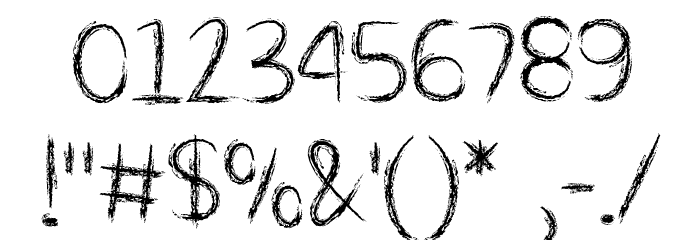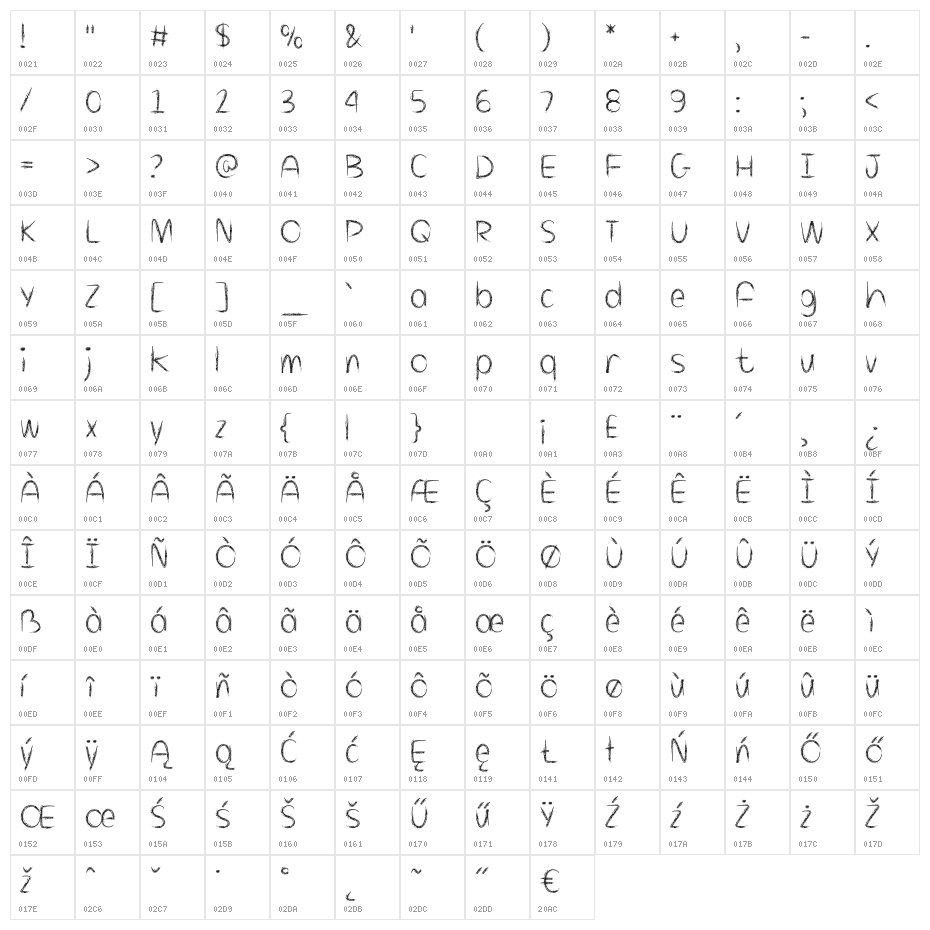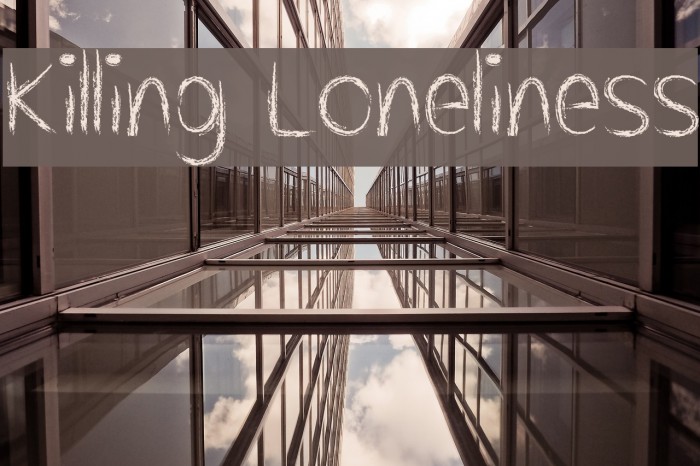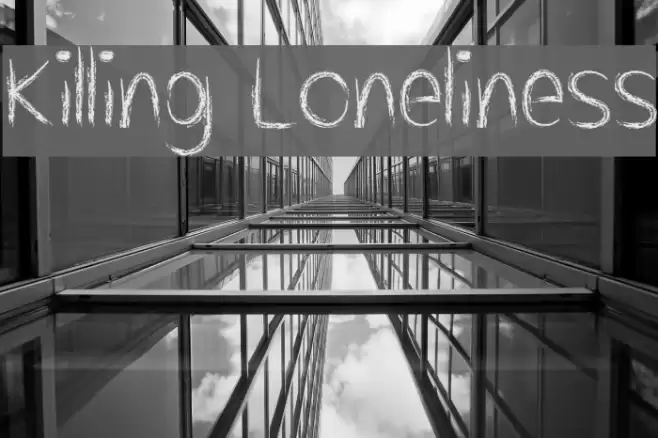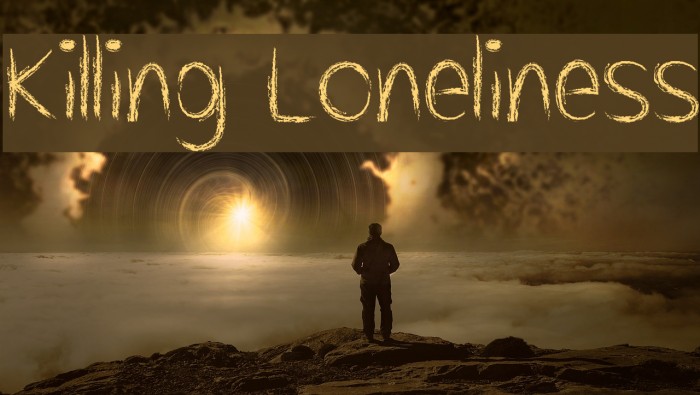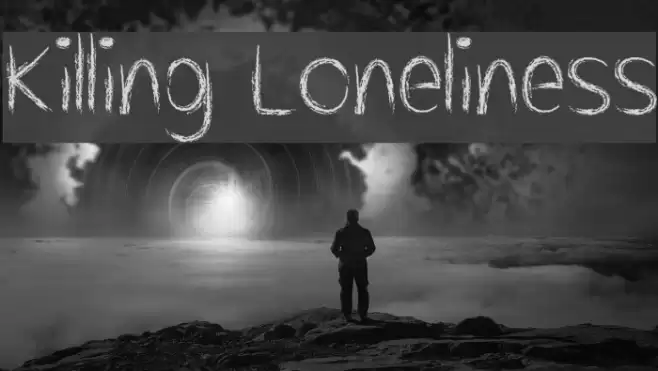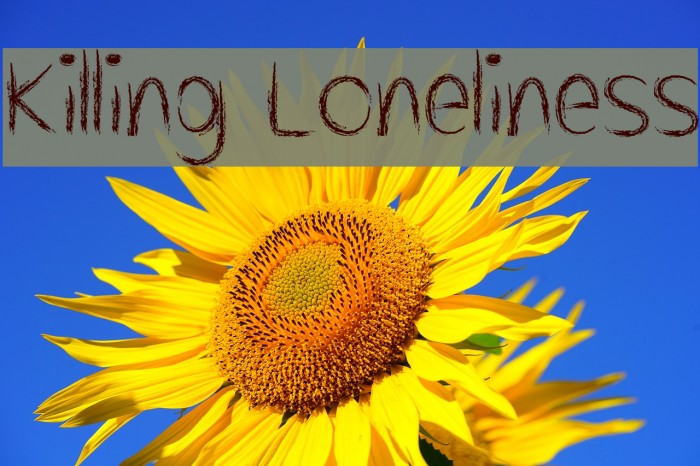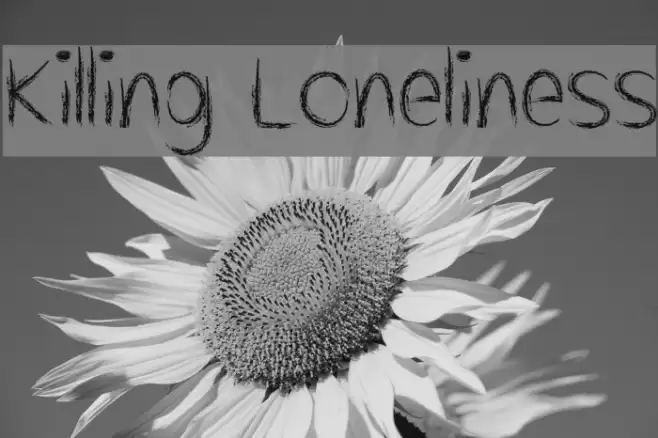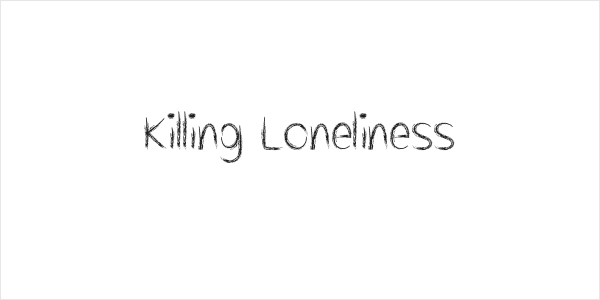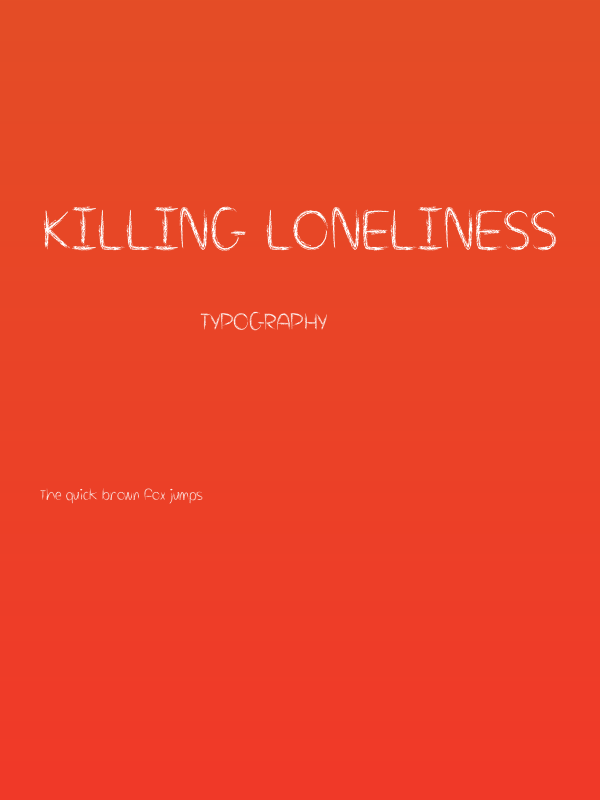
Killing Loneliness Font
Killing Loneliness Description
This font features a distinctive, hand-drawn appearance with a rough, textured finish that gives it a unique, artistic flair. The letters are slightly irregular, adding to the handmade aesthetic, while maintaining legibility. The strokes vary in thickness, creating a dynamic and engaging visual effect. This style is reminiscent of chalk or charcoal drawings, making it ideal for projects that require a personal, creative touch. The font includes a full set of uppercase and lowercase letters, numbers, and a variety of special characters, ensuring versatility in design applications.